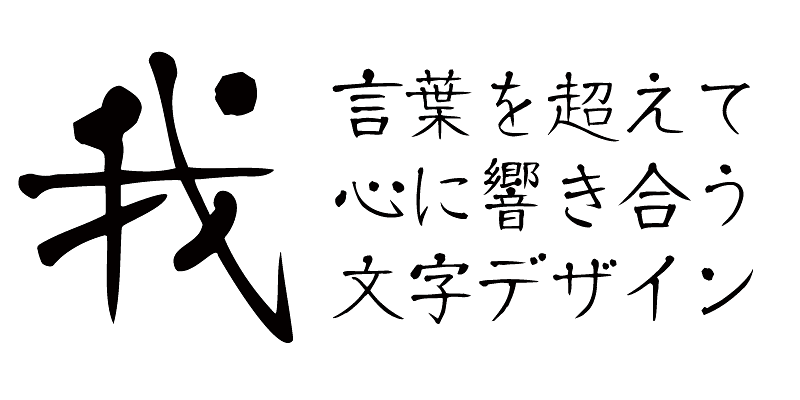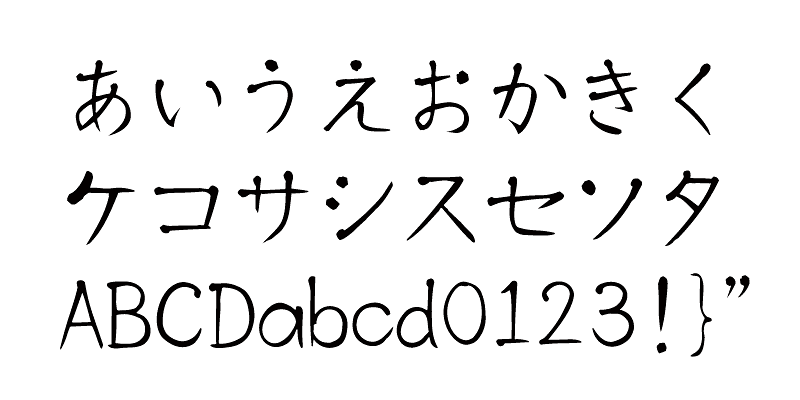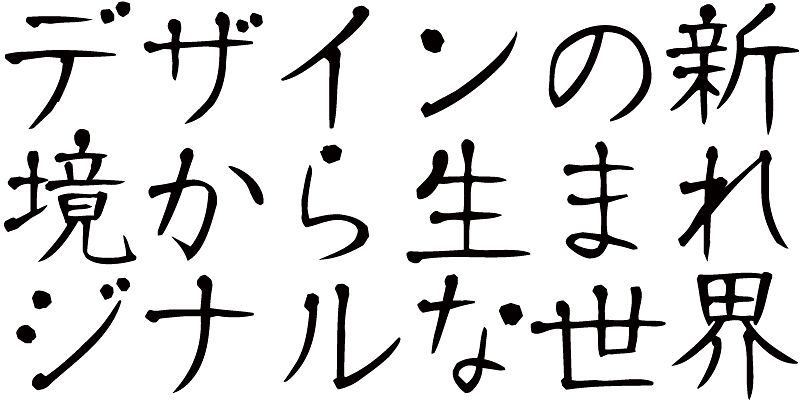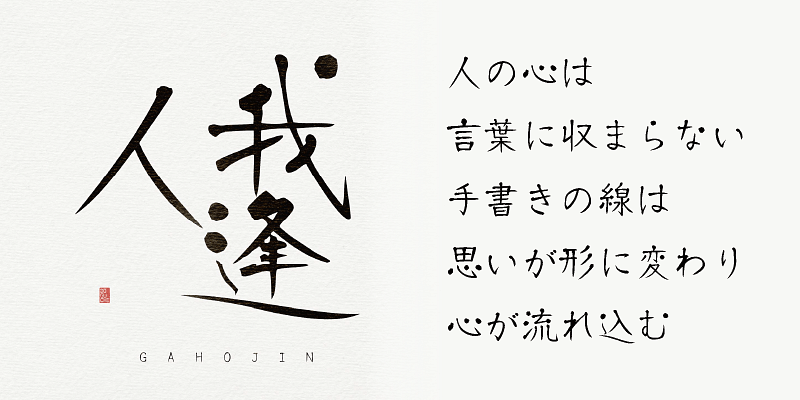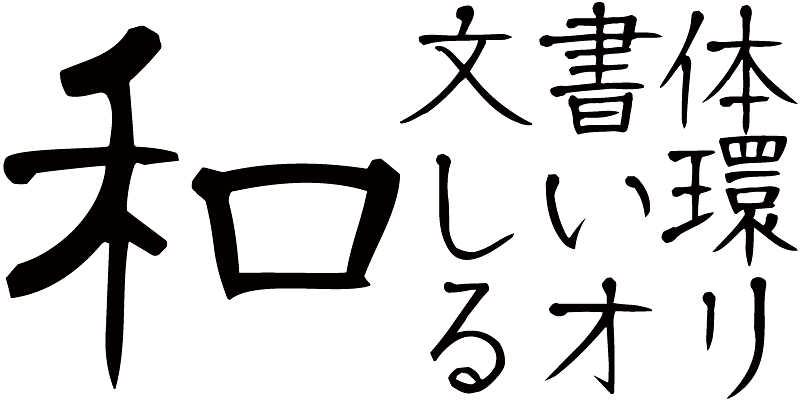
Characterized by the circular dots and sharp curved strokes, AB-gahoujin is a brush script typeface with classical and modern stylistic elements.
This series of fonts contains original hand-written Japanese typefaces based on pen calligraphy released in 2002. With a warm-hearted look, these fonts will draw the reader’s eye to key points of a design.